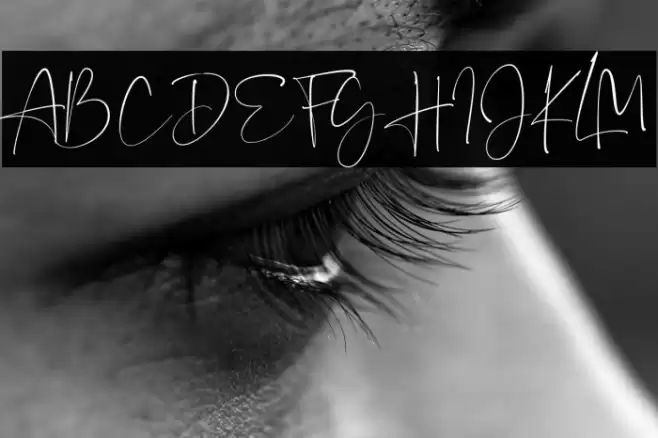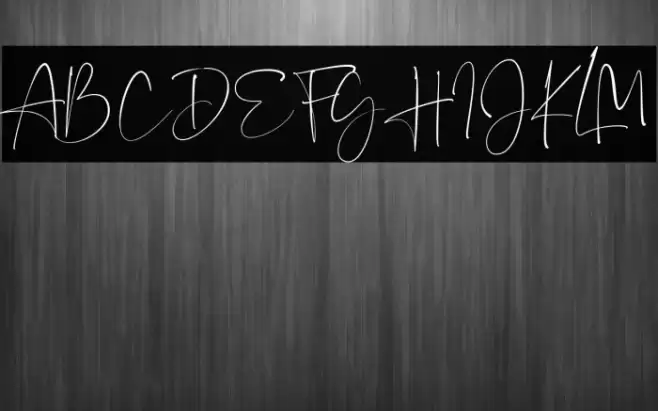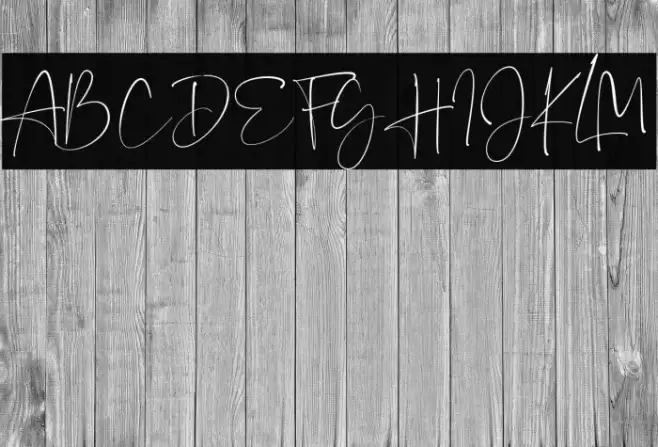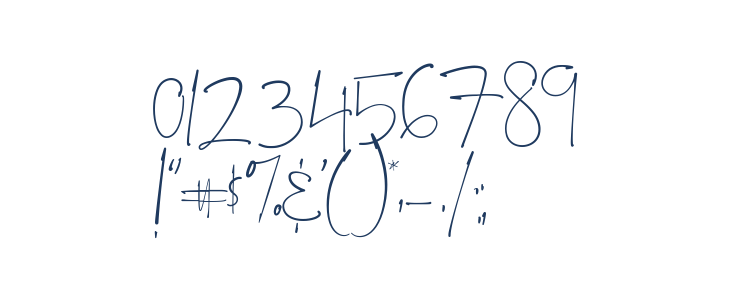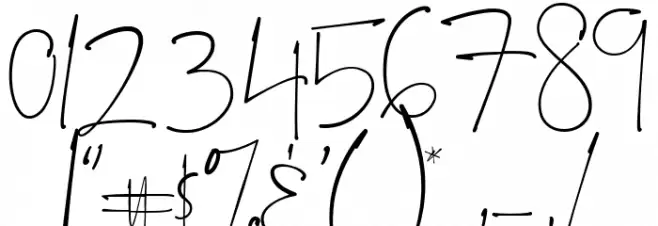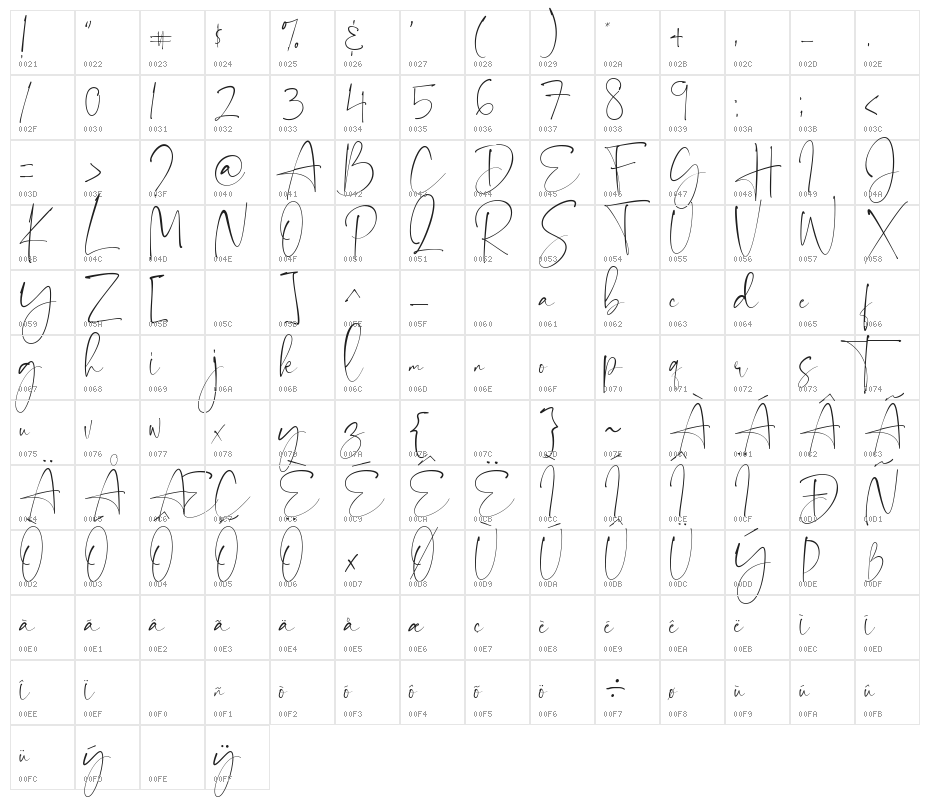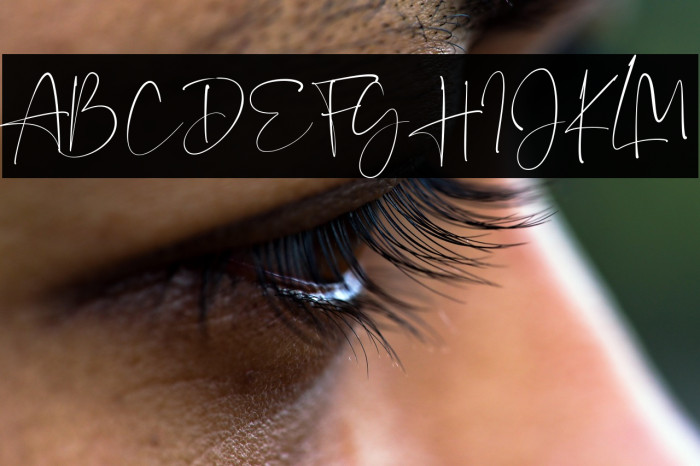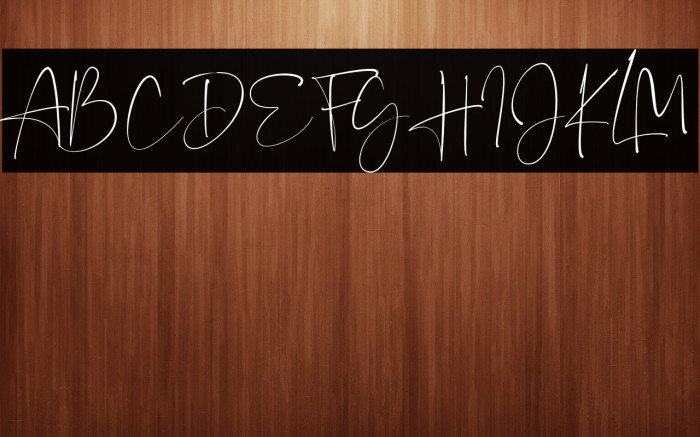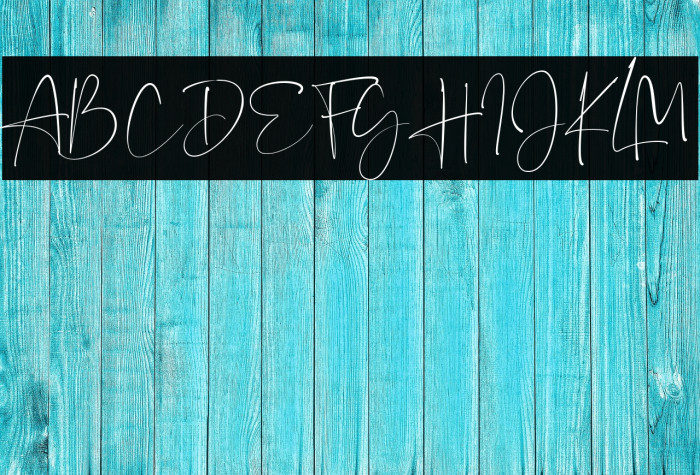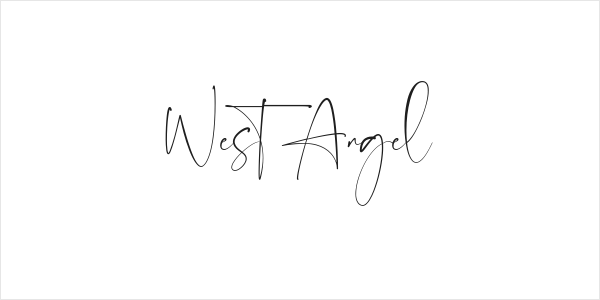
West Angel Font
West Angel Description
This font features a dynamic and expressive handwritten style, characterized by its fluid and cursive strokes. The uppercase letters are tall and slender, with a slight slant that adds to the casual elegance of the design. The lowercase letters maintain a consistent flow, with some characters extending below the baseline, enhancing the handwritten feel. Numbers are crafted with the same fluidity, ensuring a cohesive look across all characters. Special characters are uniquely styled, maintaining the overall aesthetic while providing versatility. The font's playful yet sophisticated appearance makes it suitable for creative projects that require a personal touch.
A fluid and expressive handwritten font with a casual elegance from Uncategorized fonts.
- Font: West Angel